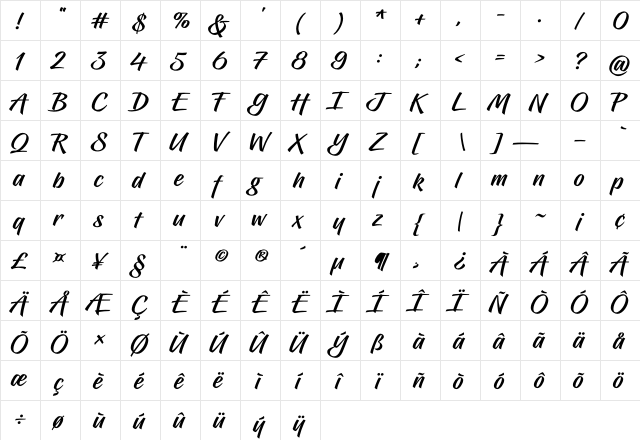
Hughs Regular
| Foundry | Youssef Habchi |
| Designer | Youssef Habchi |
Design Context for Hughs Typeface
Hughs is a composed and adaptable typeface that performs quietly and consistently across a wide range of design contexts.